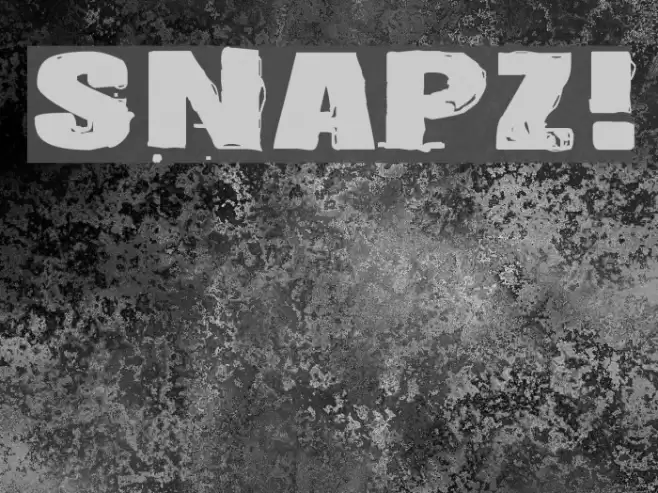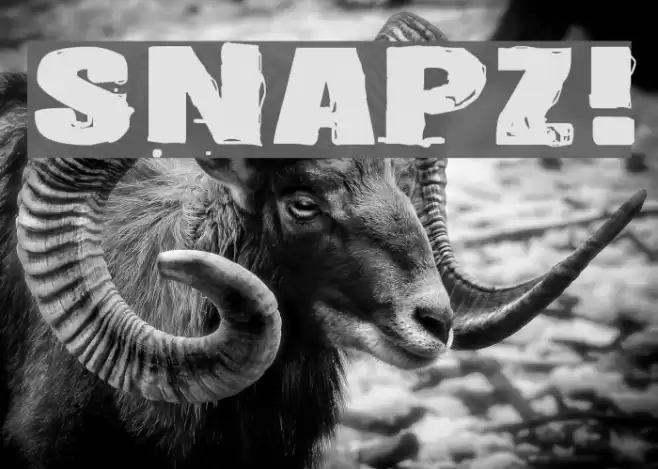
Snapz! Font
Snapz! Description
This font features a bold, distressed style with a grunge aesthetic. The characters are heavily textured, giving them a worn and rugged appearance. The uppercase and lowercase letters maintain a consistent weight, with irregular edges and a slightly uneven baseline that adds to the chaotic charm. The numbers and special characters follow the same distressed theme, making them suitable for designs that require a raw, edgy look. The overall style is reminiscent of vintage posters or rebellious street art, making it ideal for projects that aim to convey a sense of boldness and individuality.
A bold, distressed font with a grunge aesthetic and rugged texture from Distorted Eroded fonts.
- Proposed Projects: Ideal for album covers, posters, streetwear branding, and edgy graphic designs.
- Overall Style: Vintage, Grunge